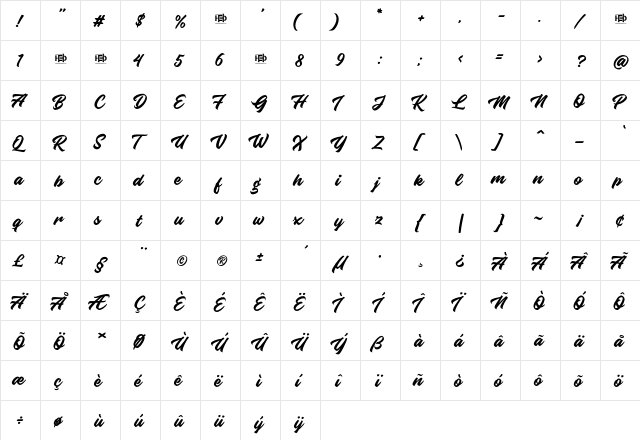
Knight Brush Demo Regular
Design Context for Knight Brush Demo Typeface
Knight Brush Demo brings a calligraphic fluidity to the page — its connecting strokes and expressive curves give it an unmistakably human quality.
Font Pairing: Combine Knight Brush Demo with a simple geometric sans for maximum contrast — the tension between flowing curves and clean structure is a classic typographic pairing.
Pro Tip: Pair Knight Brush Demo with a clean sans-serif for supporting text. The contrast between fluid script and geometric structure creates an elegant typographic hierarchy.